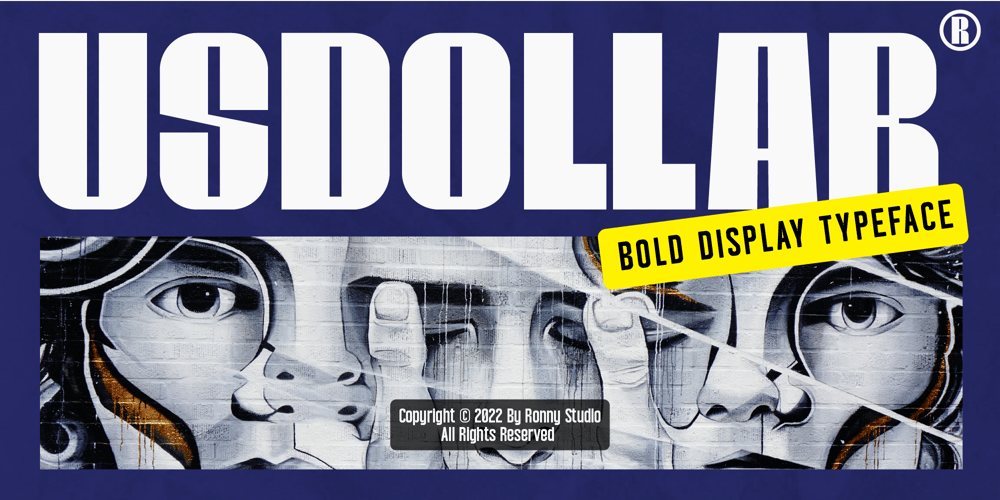
Us Dollar
Us Dollar font
Us Dollar Font Family was designed by Rony Rizki Jaya and published by Ronny Studio. Us Dollar contains 5 styles and family package options. Us Dollar is a bold display typeface font with a futuristic look. It’s super fun and playful with a bold personality. Perfect for your logo, Brand, title or whatever your creativity is.Features :- Lowercase & Uppercase- numbers and punctuation- multilingual- Ligature- alternates- PUA encodedPlease contact us if you have any questions. Enjoy Crafting and thanks for supporting us! :)Thank you